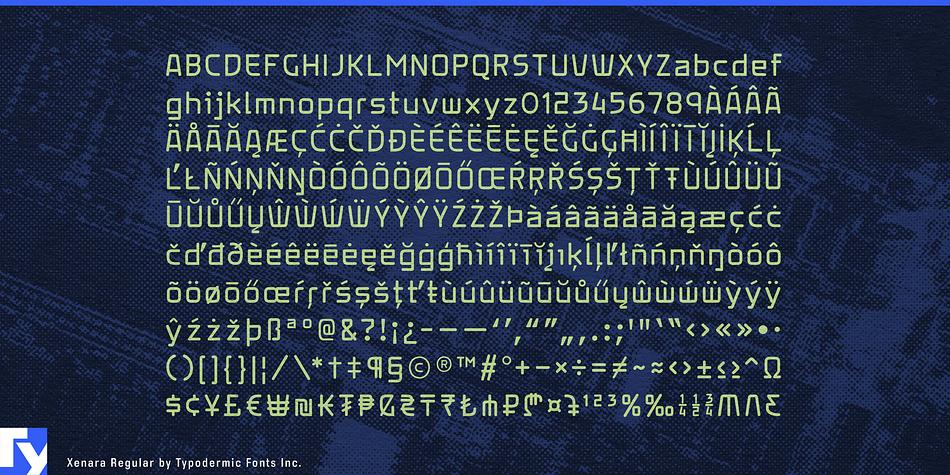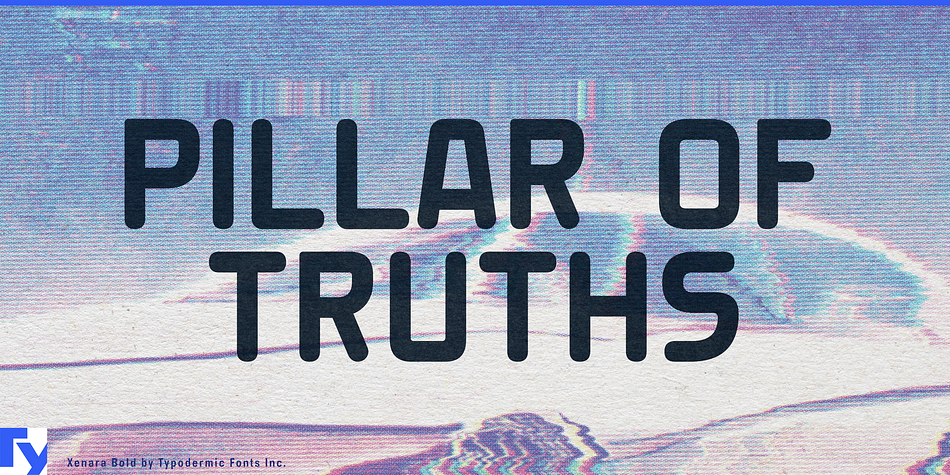
Xenara is a display and display sans font family. This typeface has four styles and was published by Typodermic Fonts Inc.
Xenara is a technical typeface with rounded ends that was inspired by calculator keys and electric typewriters from the 1970s. It will communicate your message in a scientifically precise voice. The alternate barless “A”, trident “M”, zigzag “E”, and square “S” are available if your application includes an OpenType alternates feature. Xenara is available in Regular and Bold weights. Most Latin-based European writing systems are supported, including the following languages. Afaan Oromo, Afar, Afrikaans, Albanian, Alsatian, Aromanian, Aymara, Bashkir (Latin), Basque, Belarusian (Latin), Bemba, Bikol, Bosnian, Breton, Cape Verdean, Creole, Catalan, Cebuano, Chamorro, Chavacano, Chichewa, Crimean Tatar (Latin), Croatian, Czech, Danish, Dawan, Dholuo, Dutch, English, Estonian, Faroese, Fijian, Filipino, Finnish, French, Frisian, Friulian, Gagauz (Latin), Galician, Ganda, Genoese, German, Greenlandic, Guadeloupean Creole, Haitian Creole, Hawaiian, Hiligaynon, Hungarian, Icelandic, Ilocano, Indonesian, Irish, Italian, Jamaican, Kaqchikel, Karakalpak (Latin), Kashubian, Kikongo, Kinyarwanda, Kirundi, Kurdish (Latin), Latvian, Lithuanian, Lombard, Low Saxon, Luxembourgish, Maasai, Makhuwa, Malay, Maltese, Māori, Moldovan, Montenegrin, Ndebele, Neapolitan, Norwegian, Novial, Occitan, Ossetian (Latin), Papiamento, Piedmontese, Polish, Portuguese, Quechua, Rarotongan, Romanian, Romansh, Sami, Sango, Saramaccan, Sardinian, Scottish Gaelic, Serbian (Latin), Shona, Sicilian, Silesian, Slovak, Slovenian, Somali, Sorbian, Sotho, Spanish, Swahili, Swazi, Swedish, Tagalog, Tahitian, Tetum, Tongan, Tshiluba, Tsonga, Tswana, Tumbuka, Turkish, Turkmen (Latin), Tuvaluan, Uzbek (Latin), Venetian, Vepsian, Võro, Walloon, Waray-Waray, Wayuu, Welsh, Wolof, Xhosa, Yapese, Zapotec Zulu and Zuni.